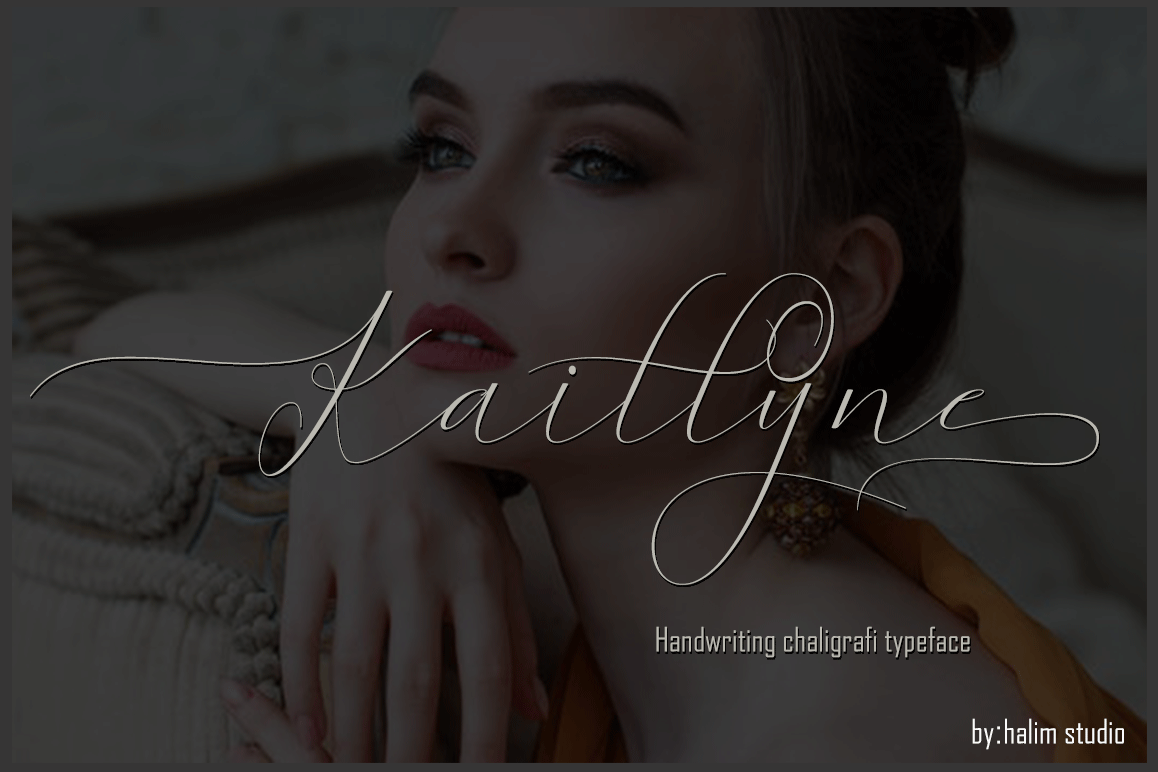
Kaitlyne
I try to present a font with an interesting touch. comes in the form of a classic with a modern twist. This font is suitable for projects such as vintage logos, fashion labels, special card headers, badges, food packaging designs, especially wine labels. This font has two different styles in the form of bold and Regular to make it easier to choose the desired style. This font Also available some alternative styles you deserve to try to create a letter.
swash, Ligature is present.